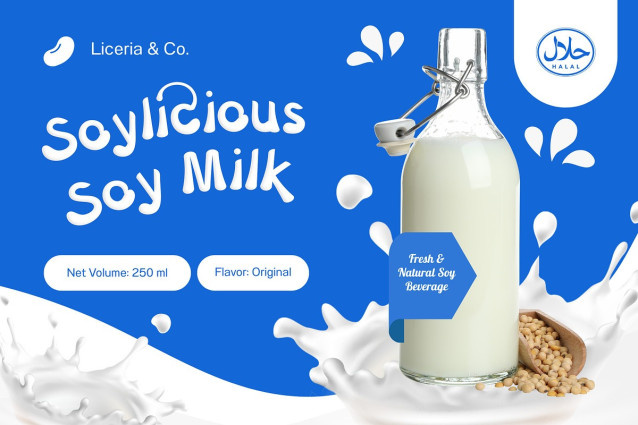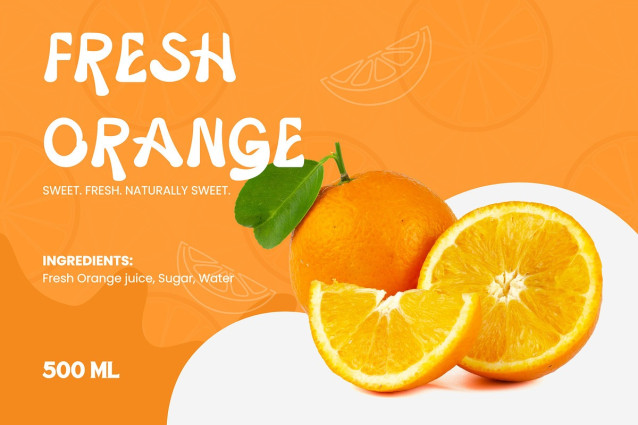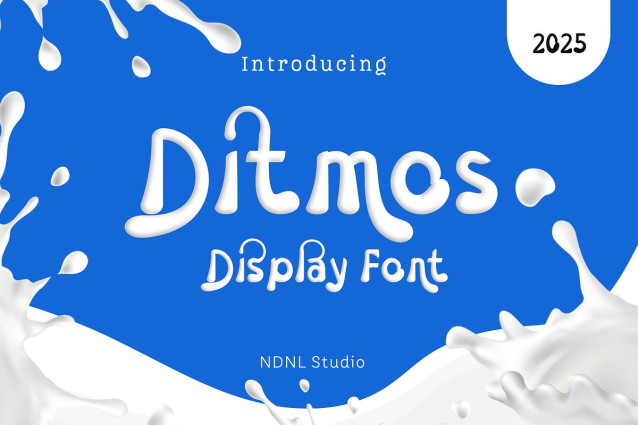
Ditmos Font
Ditmos Font a bold and playful display font that looks as smooth as milk! Its rounded, flowing shapes bring a fresh and creamy vibe to any design. Ditmos is perfect for projects that need to grab attention — from product packaging and posters to social media graphics and fun branding.